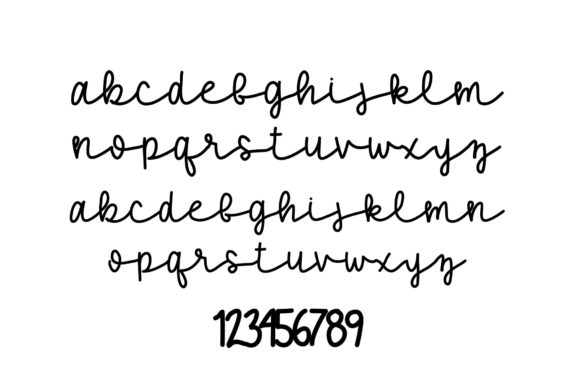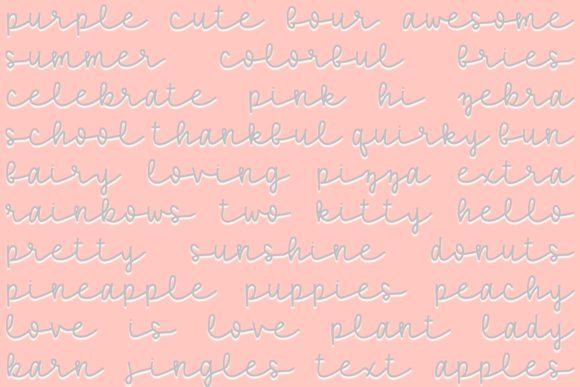
Introducing the Dog Mom Font: A Fun and Enchanting Handwritten Font
Are you a dog lover and a creative enthusiast? Look no further! The Dog Mom Font is here to make your designs stand out with its unique and playful touch. This carefully handcrafted font is perfect for crafters, designers, and anyone who wants to add a personal touch to their projects.
What Makes Dog Mom Font So Special?
Dog Mom Font is a fun handwritten font that has been meticulously designed to become a true favorite among designers and crafters. Its enchanting and whimsical style is sure to turn any creative idea into a standout project. Whether you’re working on a DIY craft, a branding project, or a digital design, this font is sure to add a touch of personality and charm.
Features of Dog Mom Font
- Handwritten with love: Each letter has been carefully handcrafted to give it a unique and personal touch.
- Fun and playful: The Dog Mom Font has a fun and playful vibe that’s perfect for designs that require a lighthearted touch.
- Enchanting and whimsical: This font has an enchanting quality that will make your designs stand out from the crowd.
- Perfect for crafters and designers: Whether you’re a professional designer or a crafter, this font is perfect for adding a personal touch to your projects.
Uses of Dog Mom Font
The Dog Mom Font is versatile and can be used for a variety of projects, including:
- DIY crafts: Add a personal touch to your DIY crafts, such as handmade cards, gift tags, and scrapbooking.
- Branding projects: Use the Dog Mom Font to create unique and eye-catching branding materials, such as logos, business cards, and brochures.
- Digital designs: Add a touch of personality to your digital designs, such as social media graphics, blog posts, and website headers.
- Stationery and invitations: Create beautiful and unique stationery and invitations for special occasions, such as weddings, birthdays, and baby showers.
Tips for Using Dog Mom Font
Here are some tips for using the Dog Mom Font to get the most out of this beautiful font:
- Pair it with other fonts: Experiment with pairing the Dog Mom Font with other fonts to create a unique and eye-catching combination.
- Use it for headings and titles: The Dog Mom Font is perfect for headings and titles, adding a touch of personality and whimsy to your designs.
- Experiment with colors: Try out different colors and color combinations to add an extra touch of personality to your designs.
The Dog Mom Font is a fun and enchanting handwritten font that’s perfect for designers and crafters who want to add a personal touch to their projects. With its unique and playful style, this font is sure to turn any creative idea into a standout project. Whether you’re working on a DIY craft, a branding project, or a digital design, the Dog Mom Font is a great choice. So why not give it a try and see the magic for yourself?